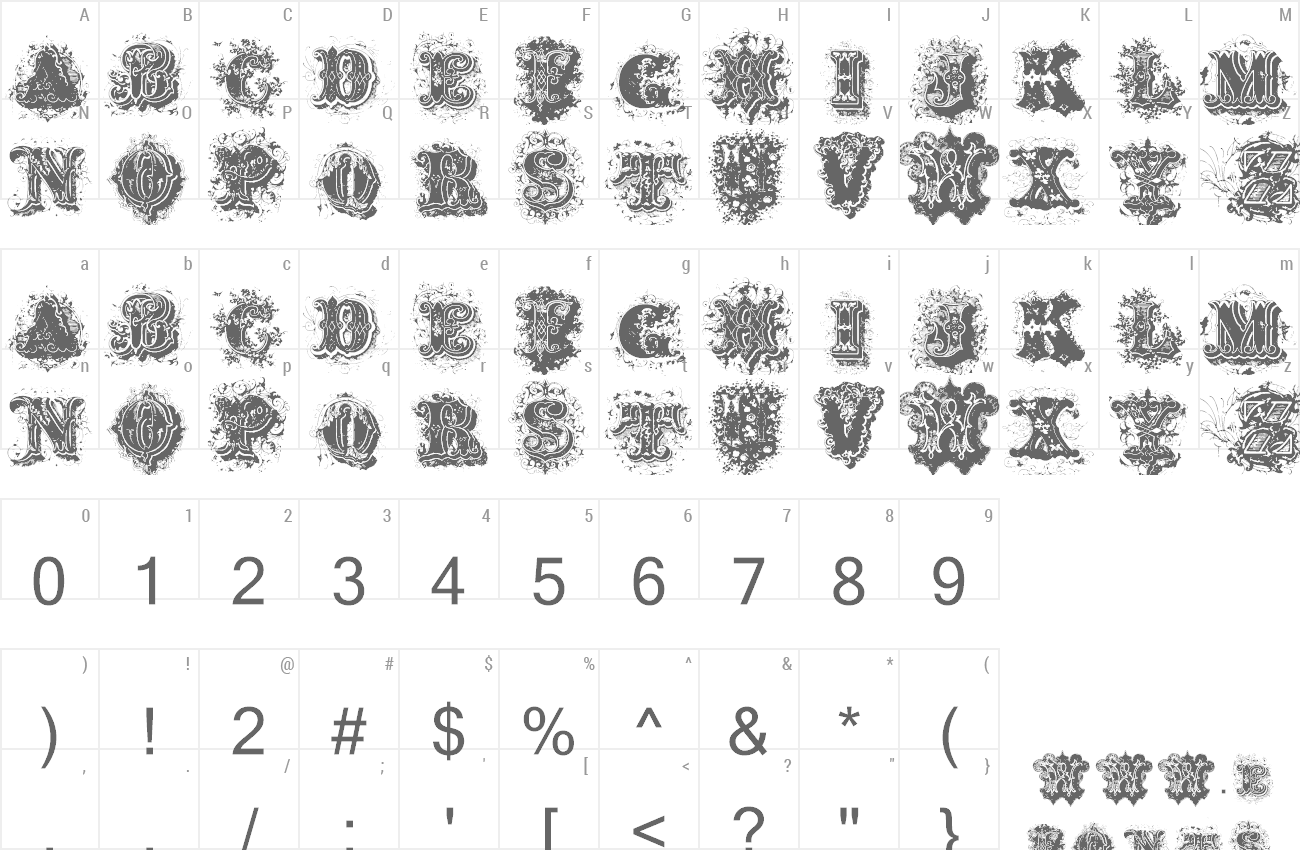
| Font name: | Dirty Ames |
| Author: | Typeology |
| Note by Typeology | |
| This is a distressed font based on an Intial Typeface created by D.T. Ames in 1884. |